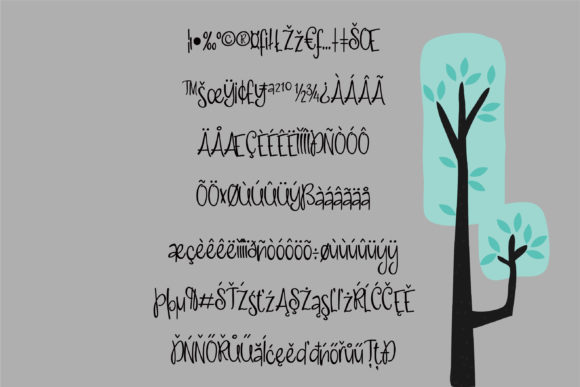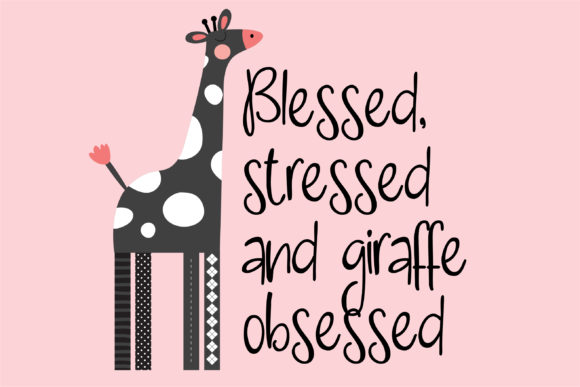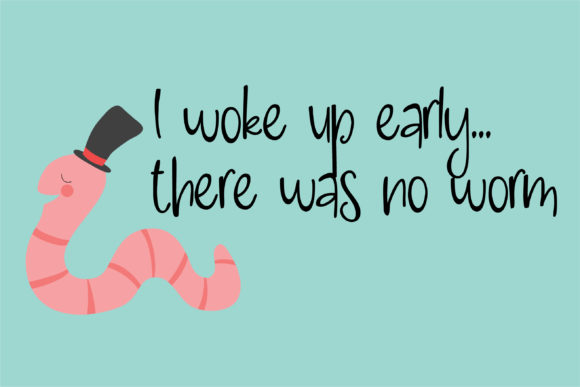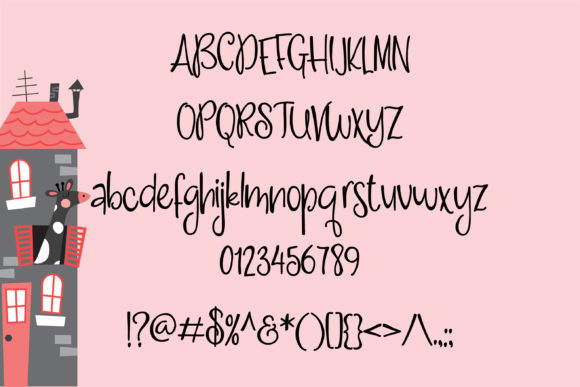
Giraffing Font
About Giraffing Font
This hand-written font is a delightful manifestation of joy, bringing a distinct and uplifting quality to your creative endeavors. From its handwritten strokes emerges a playful and carefree spirit, infusing your text with a sense of happiness that transcends the boundaries of mere typography. In a world where digital precision often dominates, this font serves as a refreshing reminder of the warmth and authenticity found in the human touch.
The joyful character of this font is evident in its spontaneous and lively design. The strokes capture the essence of freehand writing, evoking a sense of genuine expression that carries an inherent positivity. Each curve and loop seems to dance on the page, creating a visual melody that resonates with an infectious cheerfulness.
Versatility is a key attribute of this hand-written font, making it a versatile choice for a myriad of applications. Whether adorning greeting cards, invitations, social media posts, or posters, this font transforms ordinary text into a celebration of joy. Its carefree nature elicits a sense of nostalgia, harkening back to handwritten notes that carried personal sentiments and shared moments of happiness.
In the digital age, where communication is often fast-paced and transactional, this font stands as a beacon of joyous expression. It transcends the functional role of conveying words, becoming a design element that communicates emotions and uplifts the spirit of the viewer. Its handwritten charm serves as a visual reminder that behind every word lies a unique and personal touch.
Whether viewed on a screen or printed on paper, this font’s joyful quality remains palpable, enhancing the overall aesthetic of your creative projects. It is more than just a tool for communication; it is an artistic expression of joy that transforms your text into a canvas of positivity.
In conclusion, this hand-written font is a celebration of the human touch, a testament to the enduring power of joyful expression. With its lively and carefree demeanor, it has the ability to elevate your designs, infusing them with an undeniable sense of joy that resonates with viewers on a personal and emotional level. Whether used for personal or professional projects, this font is a valuable ally in spreading joy through the art of typography.